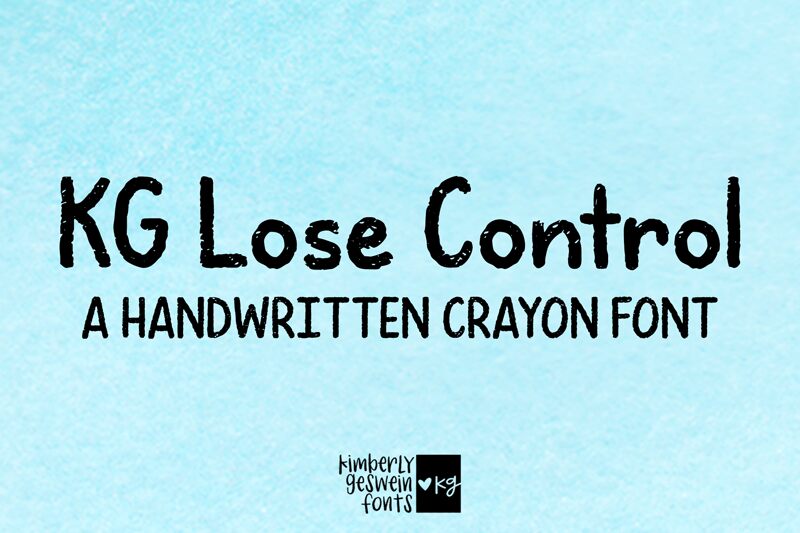
KG Lose Control
KG Lose Control is a font that bursts with energy, designed by Kimberly Geswein. It embodies a handcrafted aesthetic, with each letter showcasing the dynamic strokes and playful irregularities of brushwork. This font exudes a casual yet assertive charm, perfect for designs that aim to stand out with an authentic, artistic touch.
Ideal for creative projects that require a personal touch-such as invitations, logos, or promotional materials-KG Lose Control adds a splash of spontaneity and character. Its bold presence makes it well-suited for headings and titles where a touch of flair is desired. With KG Lose Control, your message won't just be read; it'll be felt with the same passion as its creation.